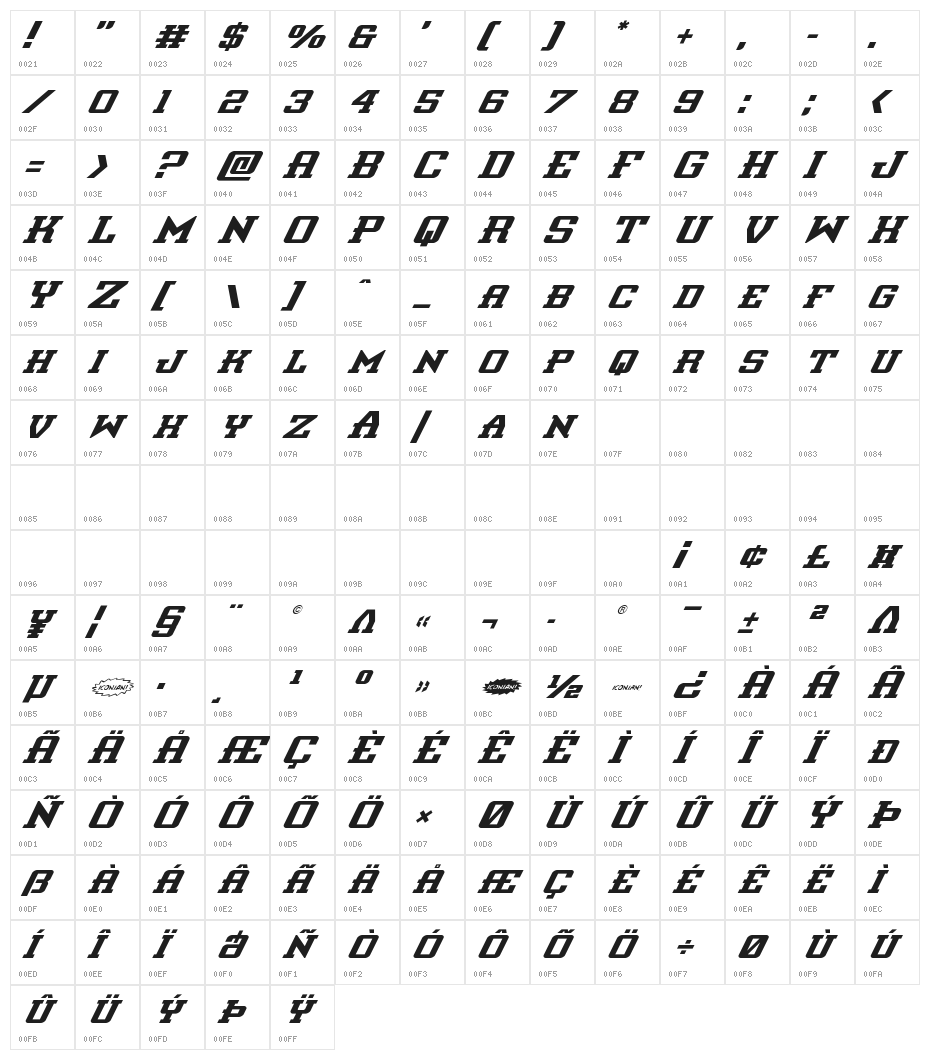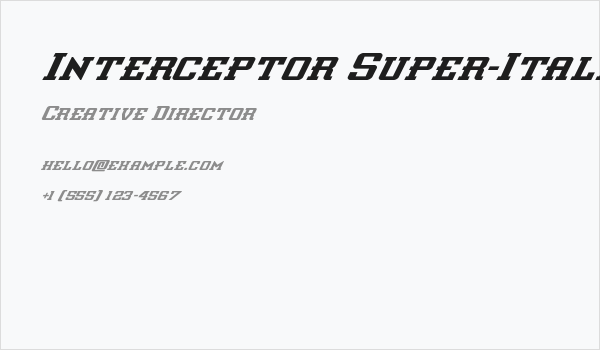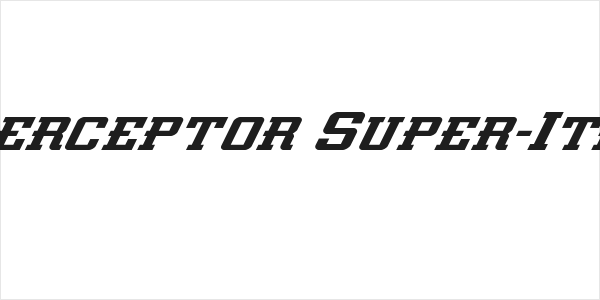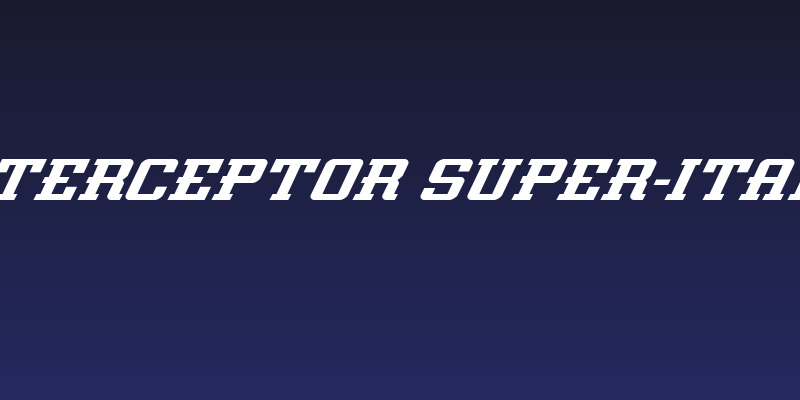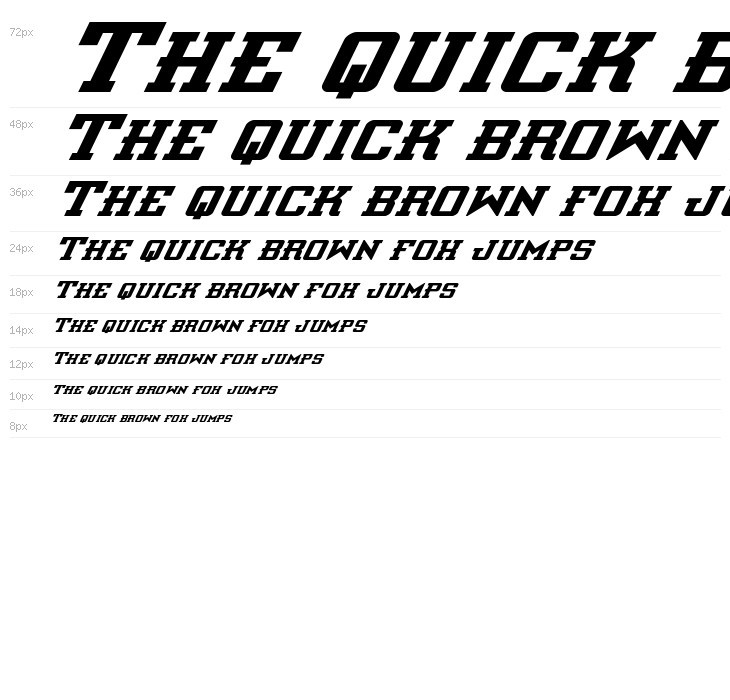
Interceptor Super-Italic Font
Interceptor Super-Italic Description
This font exhibits a bold and dynamic style with a strong italic slant, giving it a sense of motion and speed. The characters are designed with sharp, angular edges and a consistent stroke width, creating a cohesive and impactful appearance. The uppercase letters are particularly striking, with a distinctive geometric flair that adds to the font's assertive personality. The numerals and special characters maintain the same boldness and angularity, ensuring uniformity across all glyphs. This font's design is ideal for projects that require a bold, energetic, and modern aesthetic.
| Proposed Projects | Ideal for sports branding, automotive designs, dynamic posters, and modern advertising campaigns. |